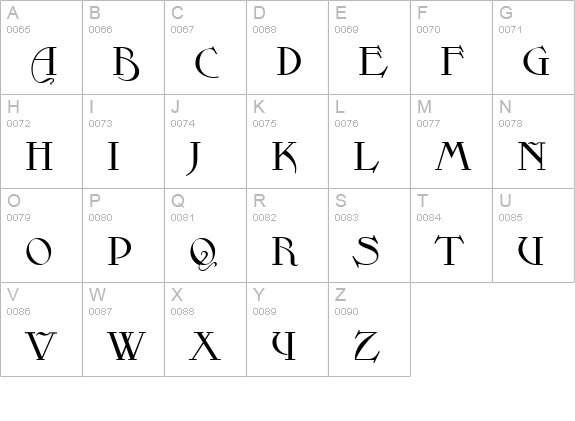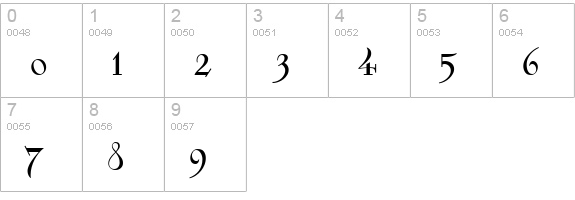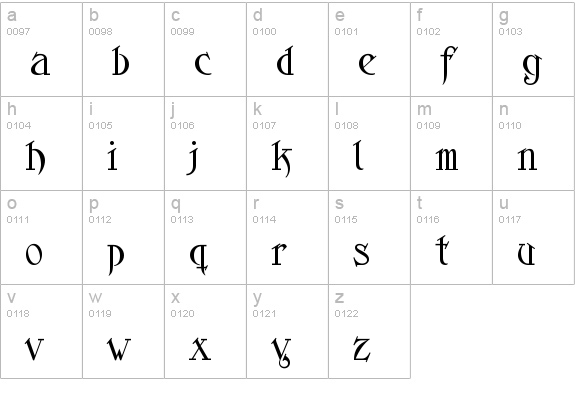
CgSkjald Font Details
CgSkjald font is a unique and versatile typeface that combines elegance with a touch of modern flair. Its sleek lines and sharp edges make it perfect for a wide range of design projects, from branding to editorial layouts. This font exudes sophistication and professionalism, making it ideal for creating a polished and refined look. What sets CgSkjald font apart is that it is not only visually appealing but also completely free to use. Whether you're a designer looking to add a fresh twist to your creations or a business owner in need of a new font for your marketing materials, CgSkjald is the perfect choice. This stunning font is available for free download exclusively at FontsMarket.com. With just a few clicks, you can enhance your designs with the elegance and style of CgSkjald font. Don't miss out on this opportunity to elevate your projects with this exceptional typeface.